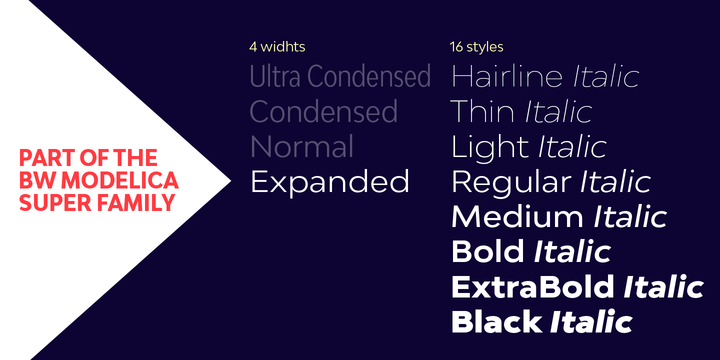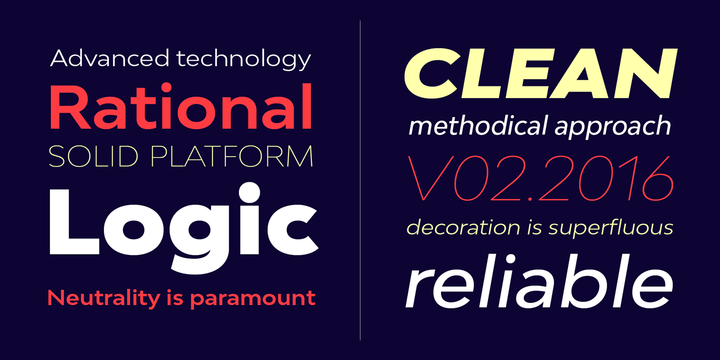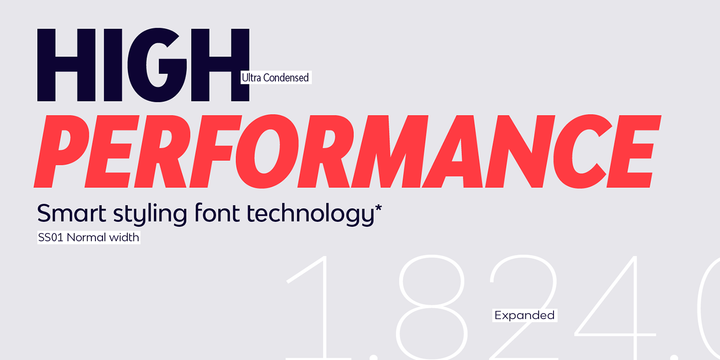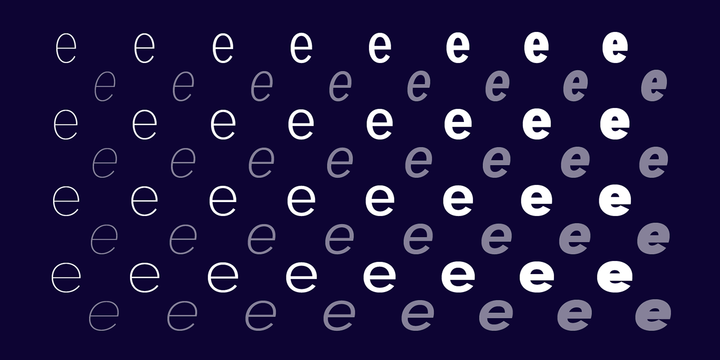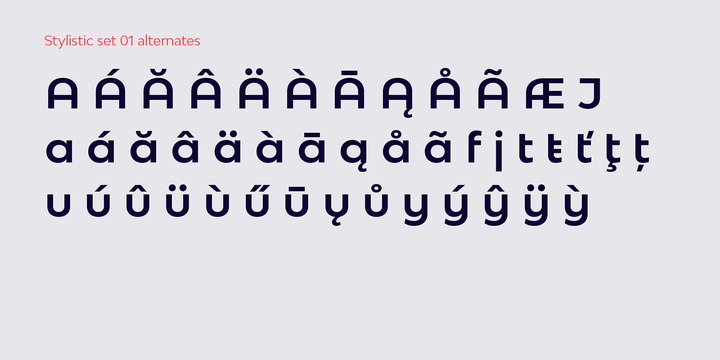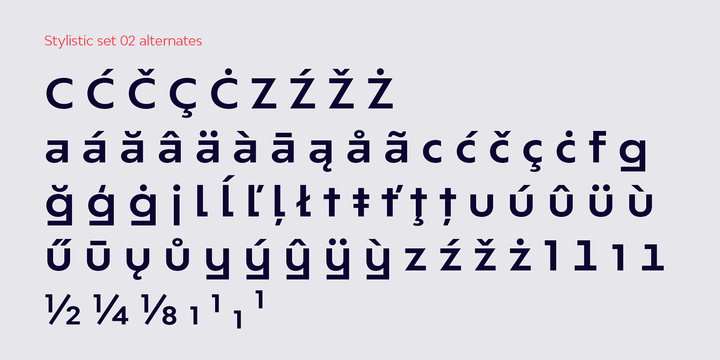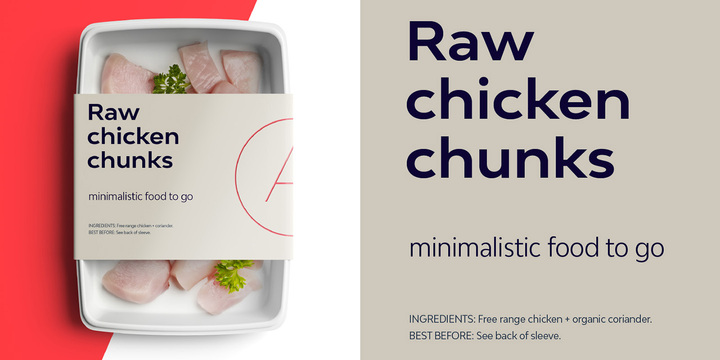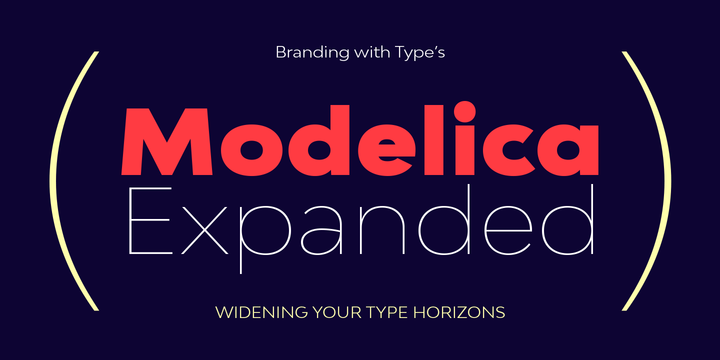
Bw Modelica Expanded Font Family
Designed by Alberto Romanos, Bw Modelica is a minimal, robust, reliable & pragmatic geometric sans. Its clean shapes and generous x-height makes it a very competent face for both, display and body copy purposes.
It’s available in four widths, each containing eight weights with matching oblique italics (that’s 64 styles in total). The main font files include two stylistic sets allowing for more expressive options, specially for display use.